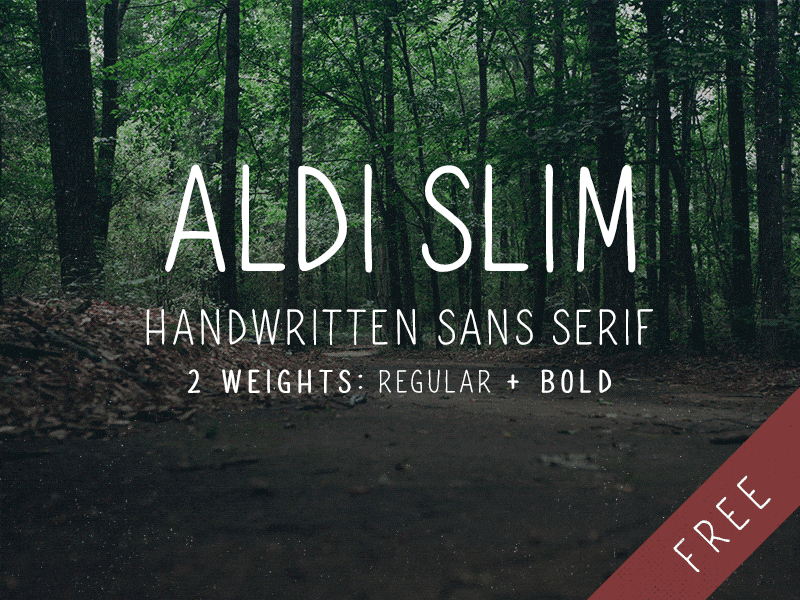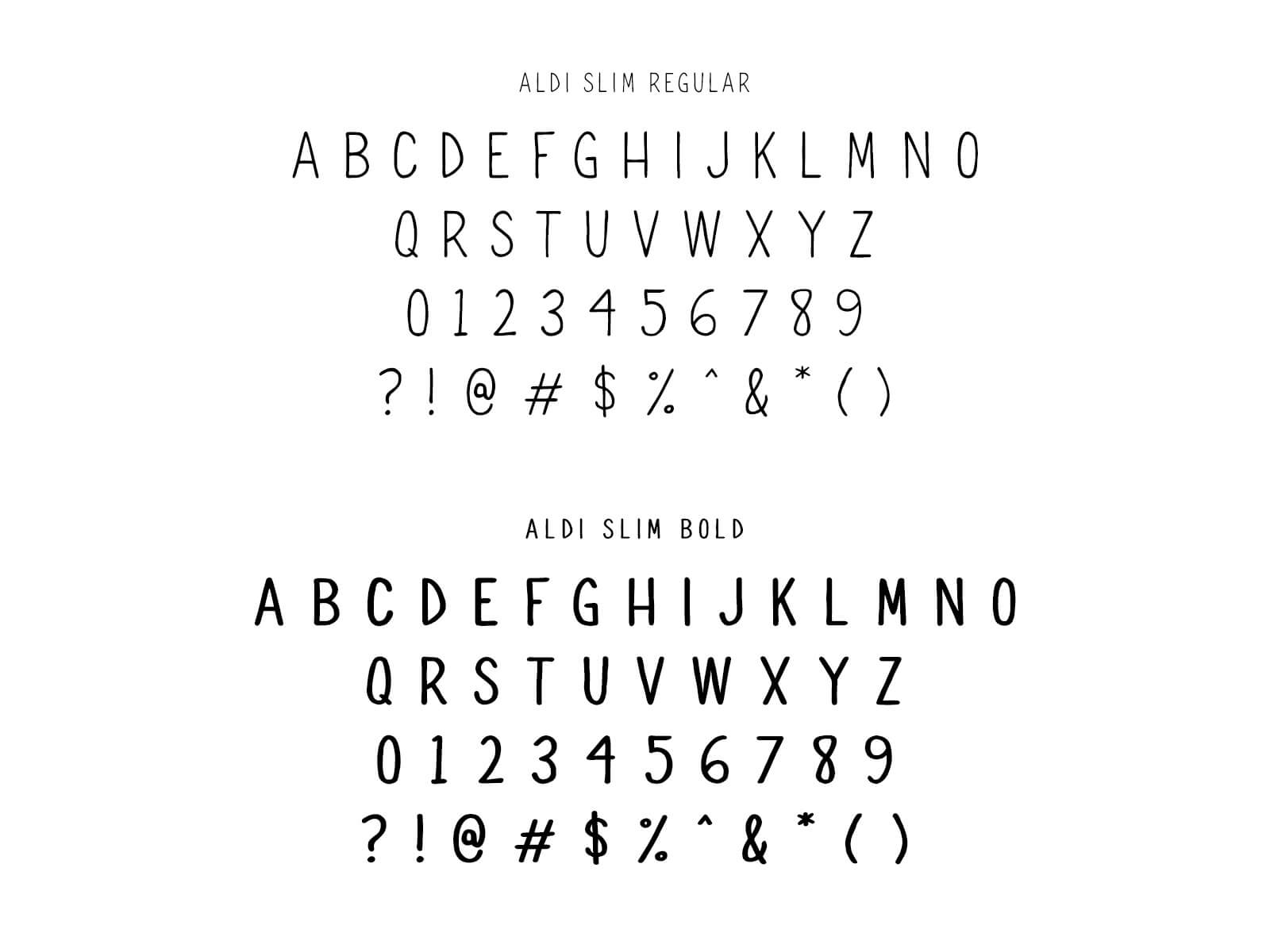
Free Font: ALDI SLIM
by Phil Goodwin
A new addition to the ALDI Family... Introducing ALDI SLIM: A free handwritten font in 2 weights. Plain and simple. Download ALDI SLIM Enjoy! Free for commercial and personal use. You may not create typefaces from ALDI SLIM or sell the typeface in any way.